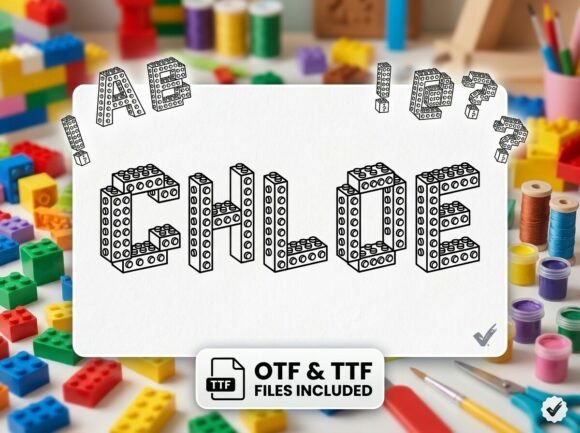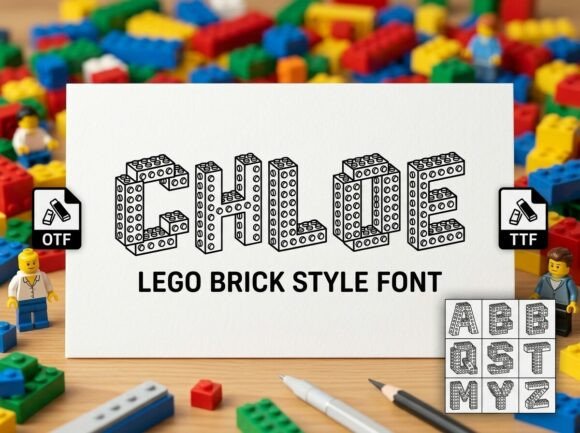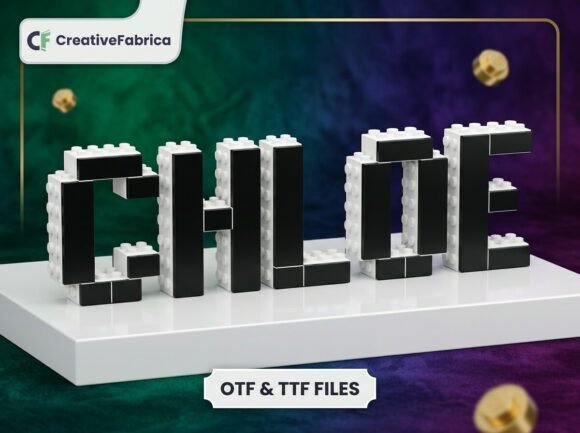
Introducing Chloe Font: The Ultimate Decorative Display Font
Are you tired of using the same old fonts for your creative projects? Look no further than Chloe Font, a stunning decorative display font designed to be the center of attention. With its unique artistic elements and strong visual personality, this font is perfect for creators who want to break away from the ordinary and make a statement.
What Makes Chloe Font Special?
Chloe Font is a versatile decorative display font that is perfect for bold headlines, artistic logos, and creative packaging. Its unique design elements and strong visual personality make it an ideal choice for creators who want to add a touch of elegance and sophistication to their work. Whether you’re a designer, craftsperson, or DIY enthusiast, Chloe Font is sure to impress.
Key Features of Chloe Font
- Unique Artistic Elements: Chloe Font features unique artistic elements that set it apart from other fonts. Its decorative design makes it perfect for creating eye-catching headlines, logos, and decorative initials.
- Strong Visual Personality: This font has a strong visual personality that is sure to make a statement. Its bold and elegant design makes it perfect for creating professional-looking designs.
- Versatile: Chloe Font is versatile enough for use in a variety of creative projects, including bold headlines, artistic logos, and creative packaging.
- Professional and Polished Finish: Despite its decorative design, Chloe Font maintains a professional and polished finish, making it perfect for use in high-end designs.
Why Choose Chloe Font?
There are many reasons why you should choose Chloe Font for your creative projects. Here are just a few:
- Stand Out from the Crowd: With Chloe Font, you can create designs that stand out from the crowd. Its unique artistic elements and strong visual personality make it perfect for creators who want to make a statement.
- Perfect for Designers and Craftspersons: Whether you’re a designer, craftsperson, or DIY enthusiast, Chloe Font is perfect for anyone who wants to add a touch of elegance and sophistication to their work.
How to Use Chloe Font
Using Chloe Font is easy. Here are a few tips to get you started:
- Use it for Headlines and Logos: Chloe Font is perfect for creating eye-catching headlines and logos. Its bold and elegant design makes it perfect for use in high-end designs.
- Experiment with Different Sizes: Don’t be afraid to experiment with different sizes when using Chloe Font. Its unique artistic elements and strong visual personality make it perfect for use in a range of sizes.
- Pair it with Other Fonts: Chloe Font can be paired with other fonts to create a unique and visually appealing design. Try pairing it with a simple sans-serif font for a bold and elegant look.
In conclusion, Chloe Font is a stunning decorative display font that is perfect for creators who want to break away from the ordinary and make a statement. With its unique artistic elements and strong visual personality, this font is perfect for bold headlines, artistic logos, and creative packaging. Whether you’re a designer, craftsperson, or DIY enthusiast, Chloe Font is sure to impress.